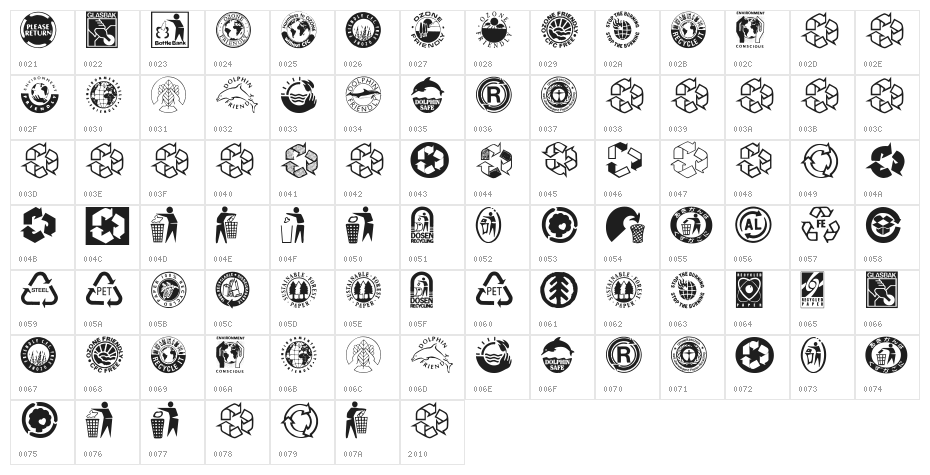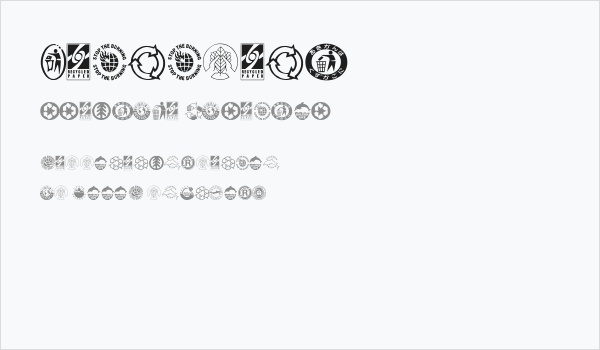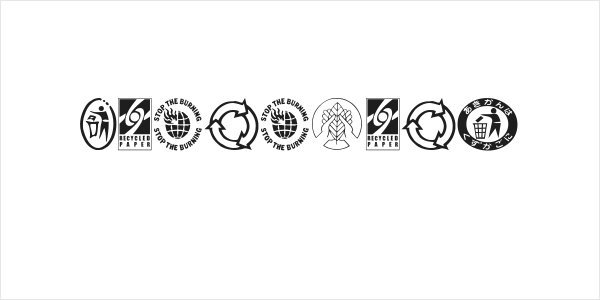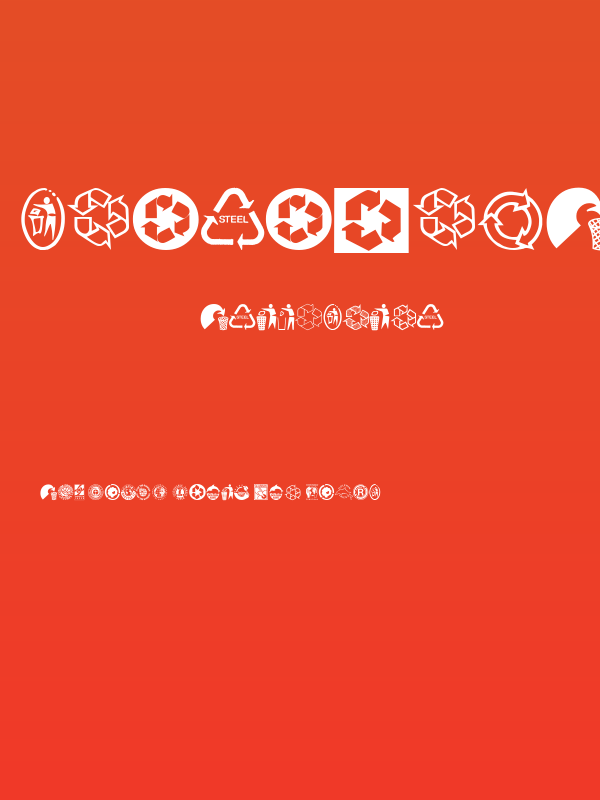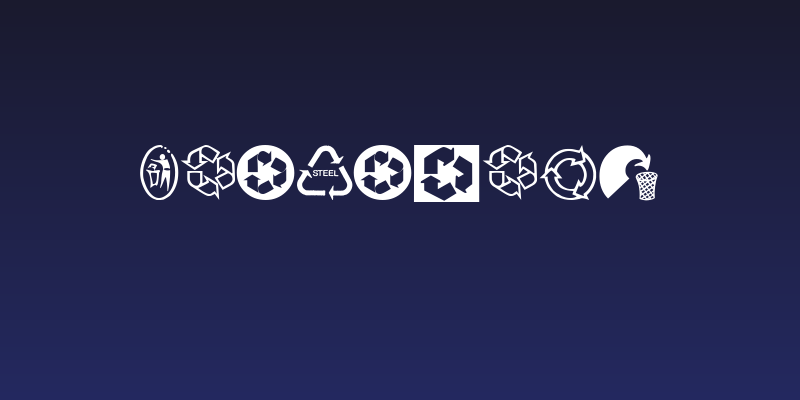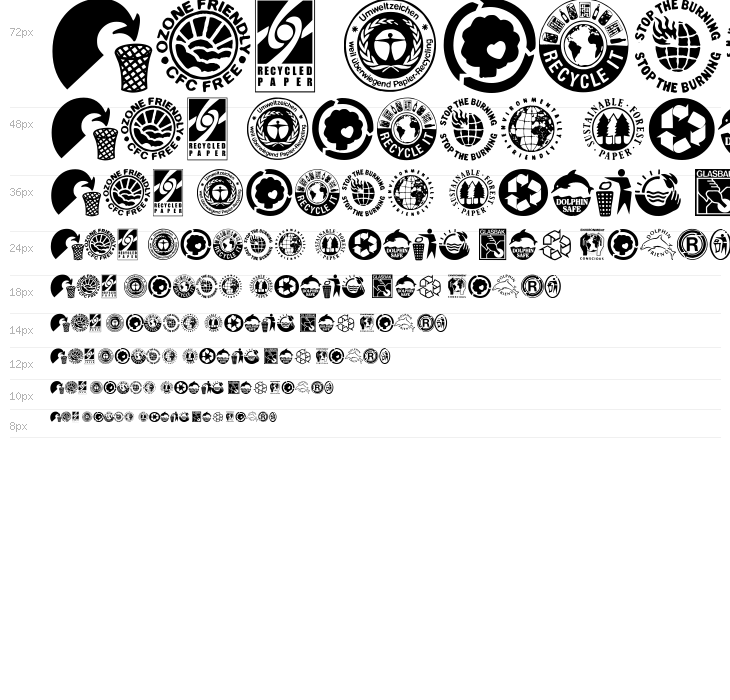
RecycleIt Font
A collection of eco-themed pictograms and recycling symbols, featuring bold, high-contrast black and white icons with clear, simplified shapes. The icons include recycling arrows, trash bins, dolphins, trees, and various environmental certification marks, all rendered in a consistent, illustrative style.
Overall StyleDecorative, Modern, Illustrative
Use CaseLogos, Labels, Icons, Signage
Proposed ProjectsEnvironmental campaigns, packaging labels, educational materials, sustainability reports, eco-friendly product branding.